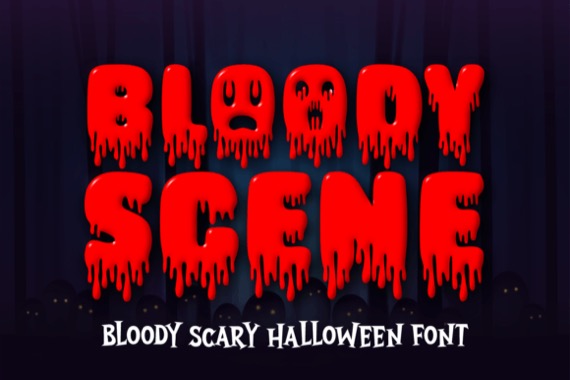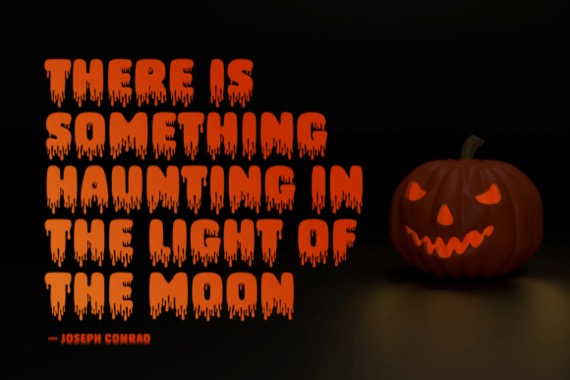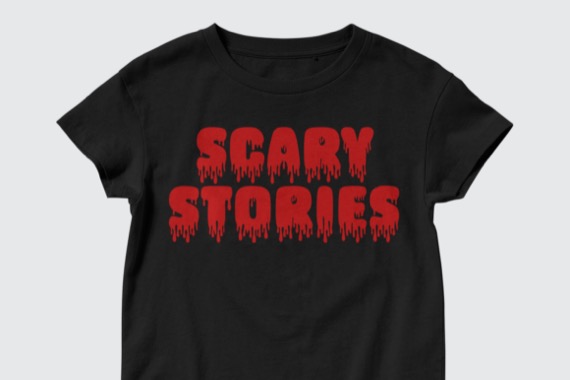
Introducing Bloody Scene Font by Situjuh, it is the epitome of Halloween horror. With letters dripping with blood, this spine-chilling typeface brings a macabre atmosphere to your designs. Perfect for adding a blood-curdling touch to party invitations, haunted house signage, and other spooky creations, it is sure to send shivers down your spine.
Bloody Scene Display Font
Designer, Publisher: Situjuh